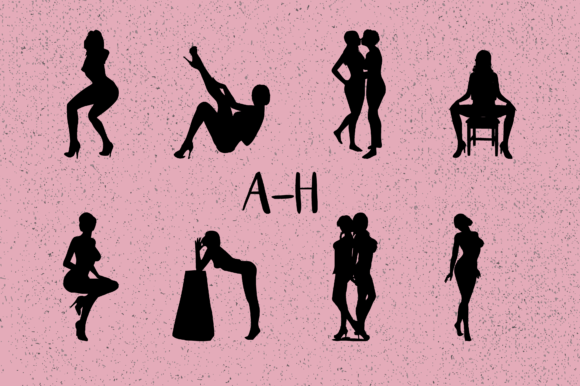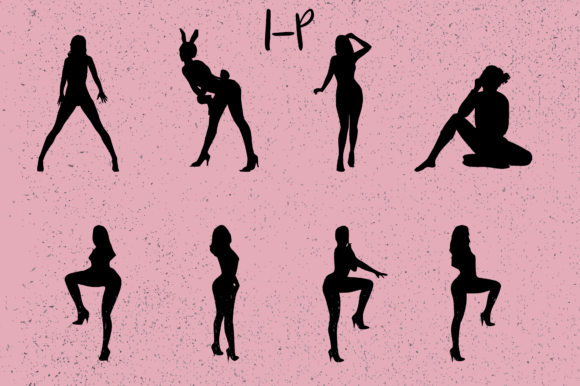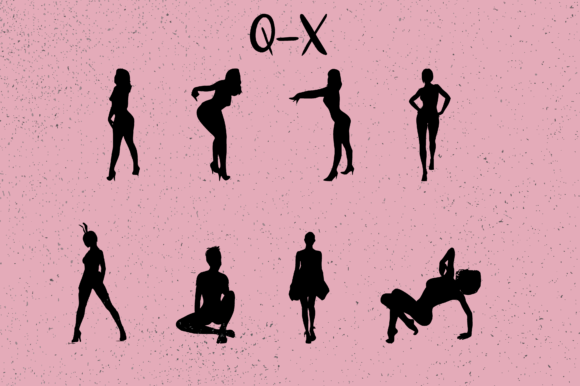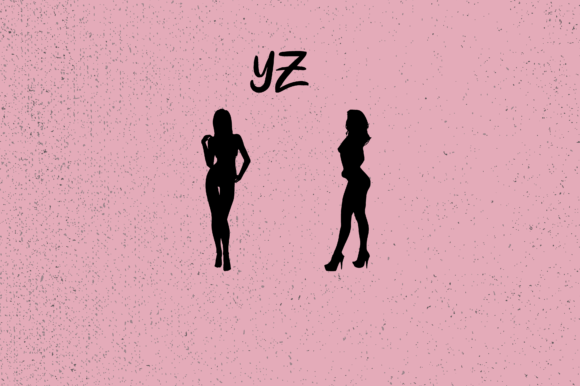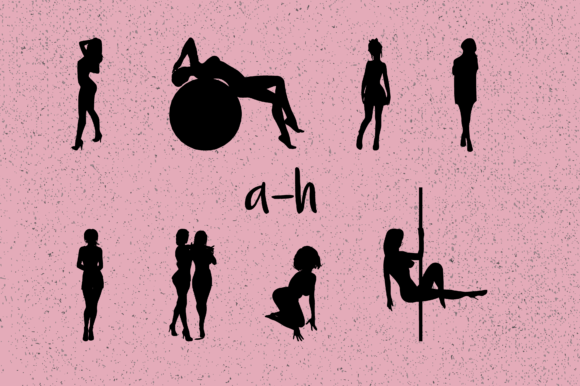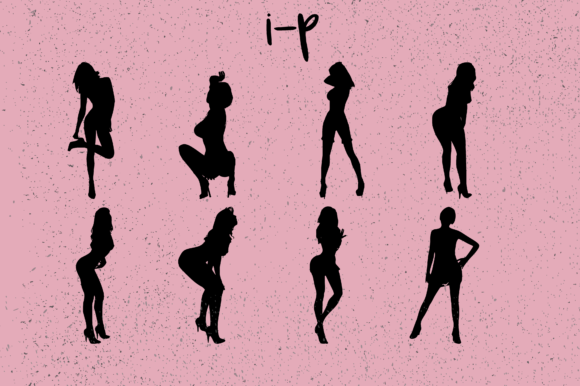
Bringing Your Designs to Life with the Attractive Female Poses Font
Have you ever stared at a blank page, trying to come up with the perfect illustration to capture the essence of femininity in your design project? You’re not alone. As a designer, you know the importance of using the right visual elements to convey your message and connect with your audience. That’s where the Attractive Female Poses Font comes in – a dingbats typeface designed to generate attractive female figures that you can use in various female-related projects.
The Attractive Female Poses Font is more than just a font – it’s a valuable resource for designers looking to add a touch of elegance and sophistication to their work. With this font, you can create a wide range of illustrations that showcase the beauty and diversity of women, making it an essential tool for any designer working on projects that require a feminine touch.
Key Features of Attractive Female Poses Font
- Unique Characteristics: The Attractive Female Poses Font features a stylized, hand-drawn design with intricate details and subtle curves, making it perfect for illustrations, graphics, and designs that require a touch of elegance and sophistication.
- Character Set: The font includes a comprehensive character set, including uppercase and lowercase letters, numerals, punctuation marks, and special characters, ensuring that you have everything you need to create visually appealing designs.
Review of Attractive Female Poses Font
I have to say, the Attractive Female Poses Font is a unique and creative addition to any design project. ✨ The font is inspired by various feminine poses and does add a touch of elegance and sophistication to text. The font’s versatility is one of its strongest points, allowing it to be used in a variety of contexts, from fashion to beauty and beyond.
One of the things I appreciate about this font is its legibility, even at smaller sizes. The characters are well-defined, and the font’s curves make it easy on the eyes. Additionally, the font’s bold and regular weights provide a nice contrast, making it easy to use in headings and body text.
While the Attractive Female Poses Font is a great addition to any design project, there are a few limitations to consider.
- ⚠️ Limited character set: The font is relatively small, with only 96 characters in its regular weight. This may make it difficult to use in situations where a larger character set is required.
- ⚠️ Limited language support: The font only supports a limited number of languages, which may be a concern for designers working on projects that require text in multiple languages.
Overall, the Attractive Female Poses Font is a solid choice for designers looking to add a touch of elegance and sophistication to their text. While it has some limitations, its versatility and legibility make it a great addition to any design project. With a little creativity, the Attractive Female Poses Font can be used in a variety of contexts, from fashion and beauty to luxury and lifestyle.